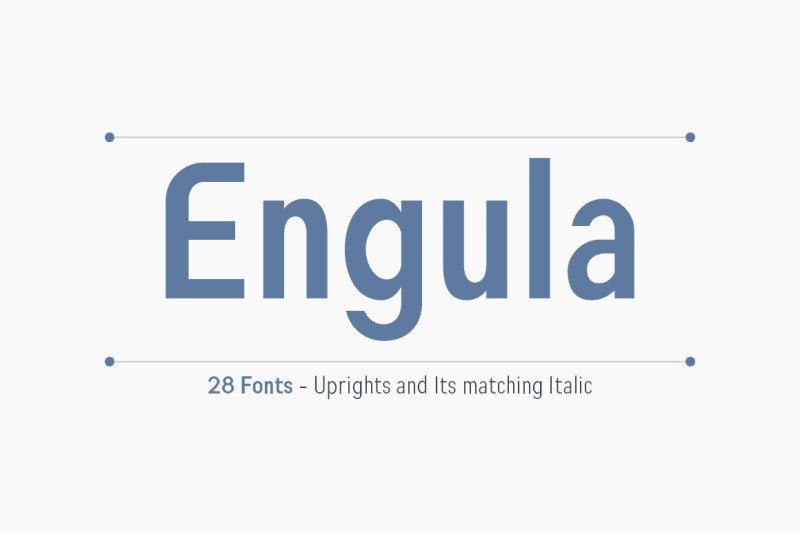
Engula Font
Engula Font is a sans serif font family. It consists of 28 fonts. 14 upright styles and 14 matching italic styles. It’s a modern, clean and simple sans serif font.
Is perfect for modern logo designs, headers and small amounts of text. It contains an uppercase and lowercase alphabet with numbers and symbols.